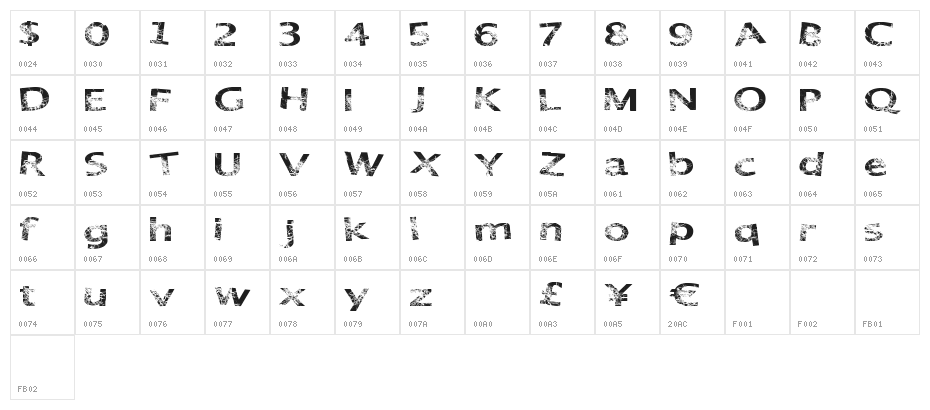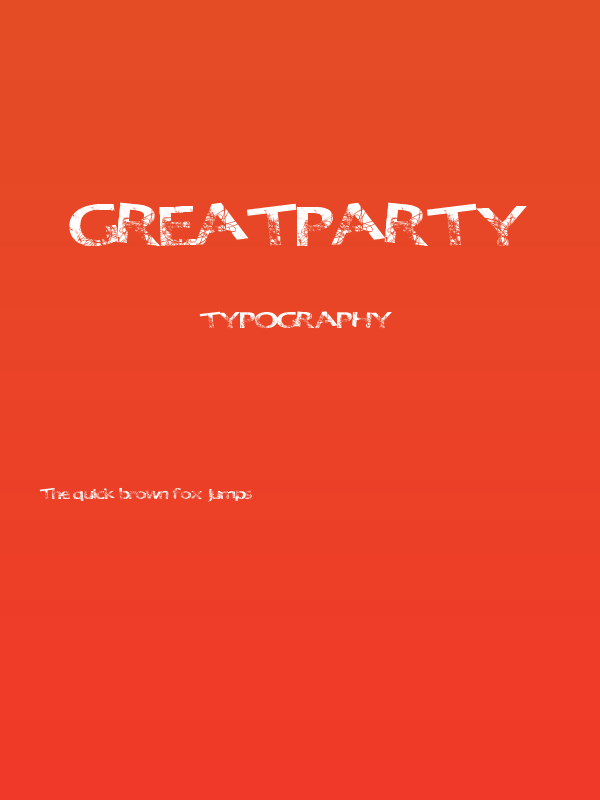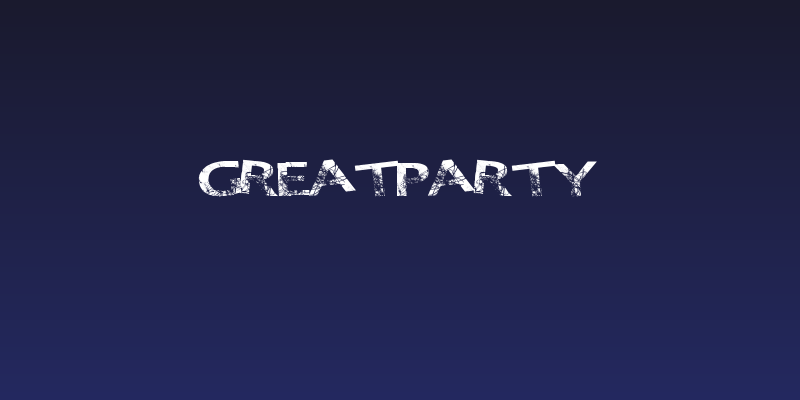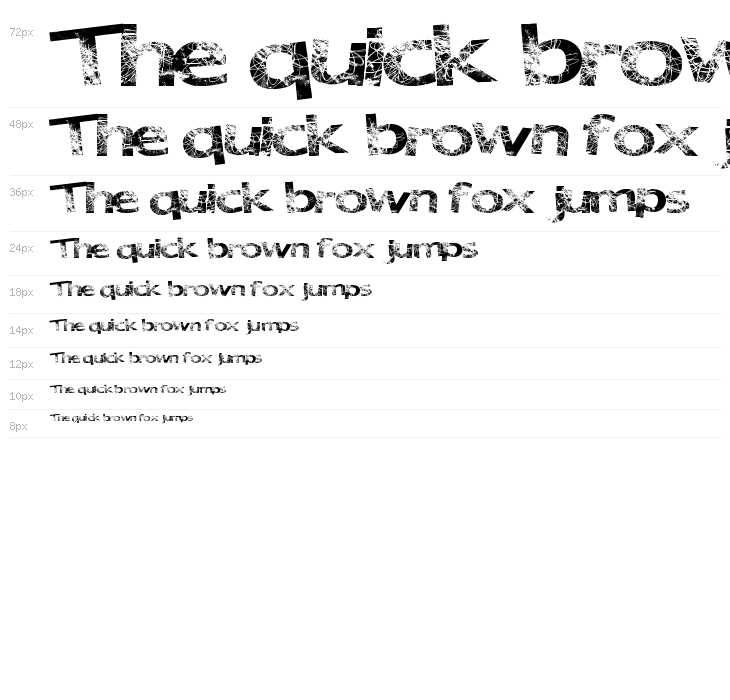
GreatParty Font
This font features a unique, distressed style with a textured appearance that resembles cracked or shattered surfaces. The uppercase and lowercase letters maintain a consistent design, with each character exhibiting irregular patterns that create a dynamic and edgy look. The numerals and special characters follow the same aesthetic, ensuring a cohesive visual theme. This font's bold and impactful presence makes it ideal for projects that require a strong, artistic statement. The irregularities in the design add a sense of movement and energy, making it suitable for creative and unconventional applications.
| Proposed Projects | Ideal for posters, album covers, event flyers, and any project needing a bold, artistic touch. |